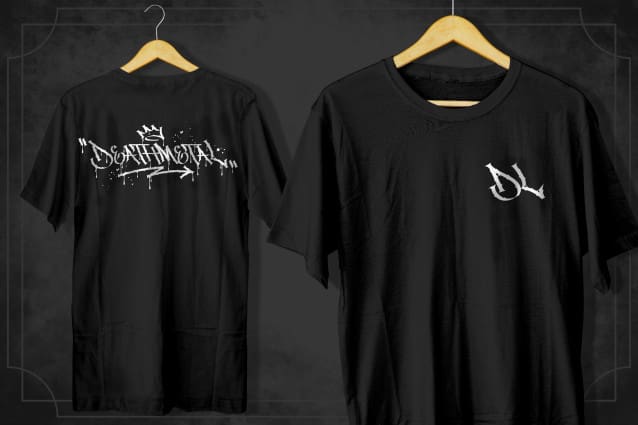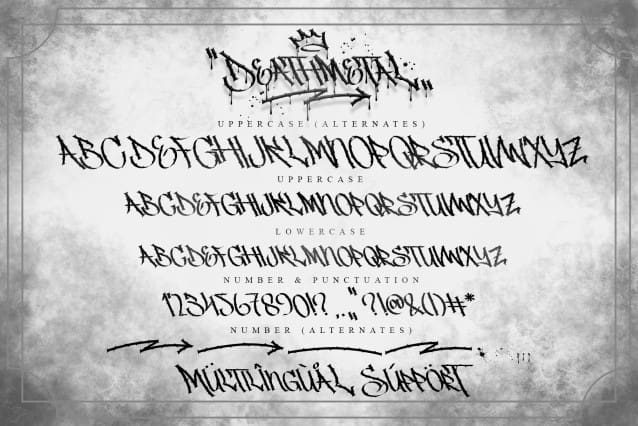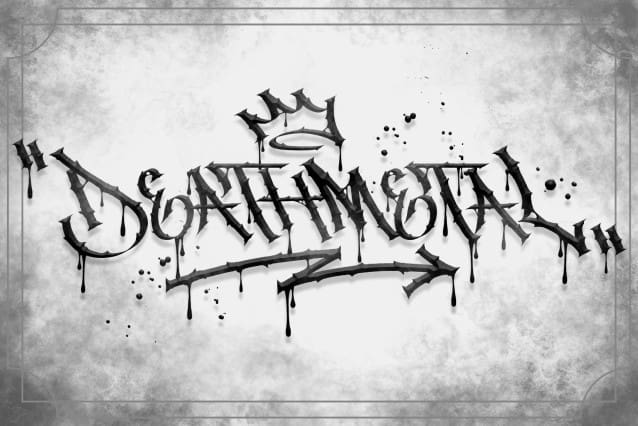
Deathmetal Font
Deathmetal Font combines graffiti style and blackmetal style, giving a unique and cool new impression. Deathmetal is a carefully crafted font, which features a very heavy black metal feel. Deathmetal suitable for metal band logos, merchandise, clothing, apparel, or anything that needs a black metal feel.